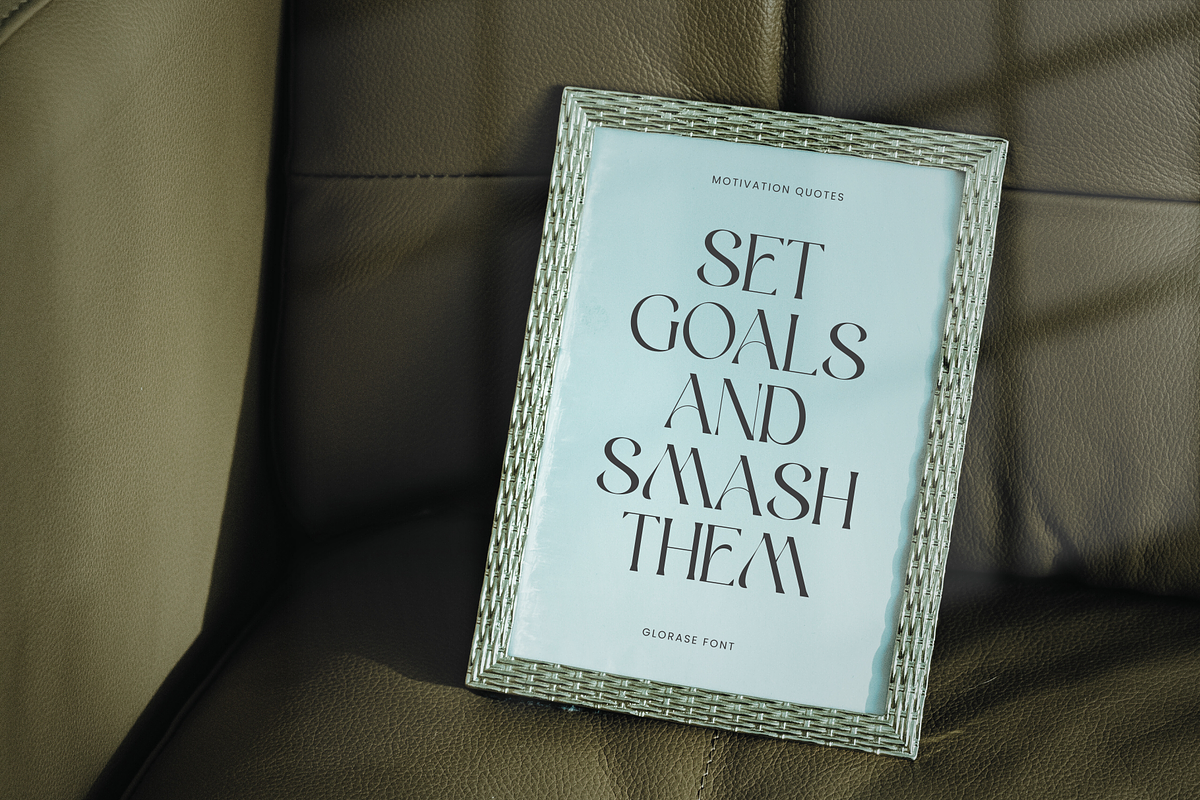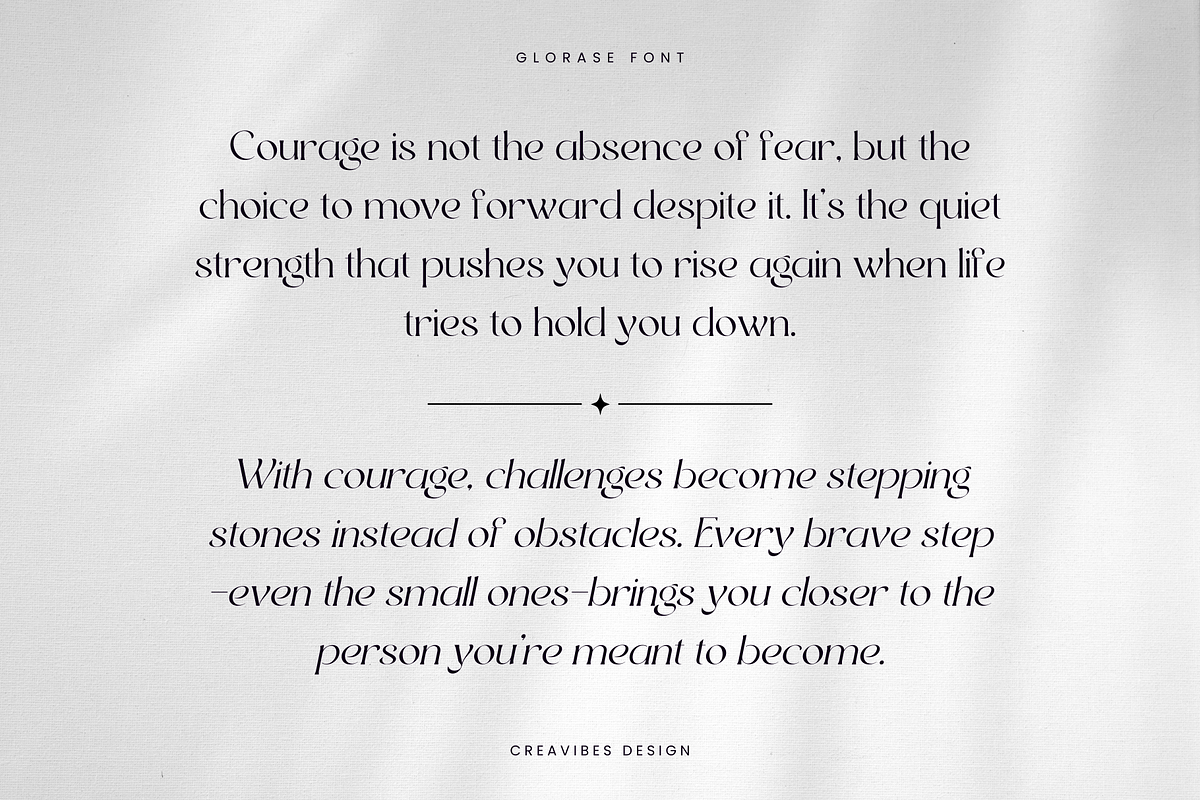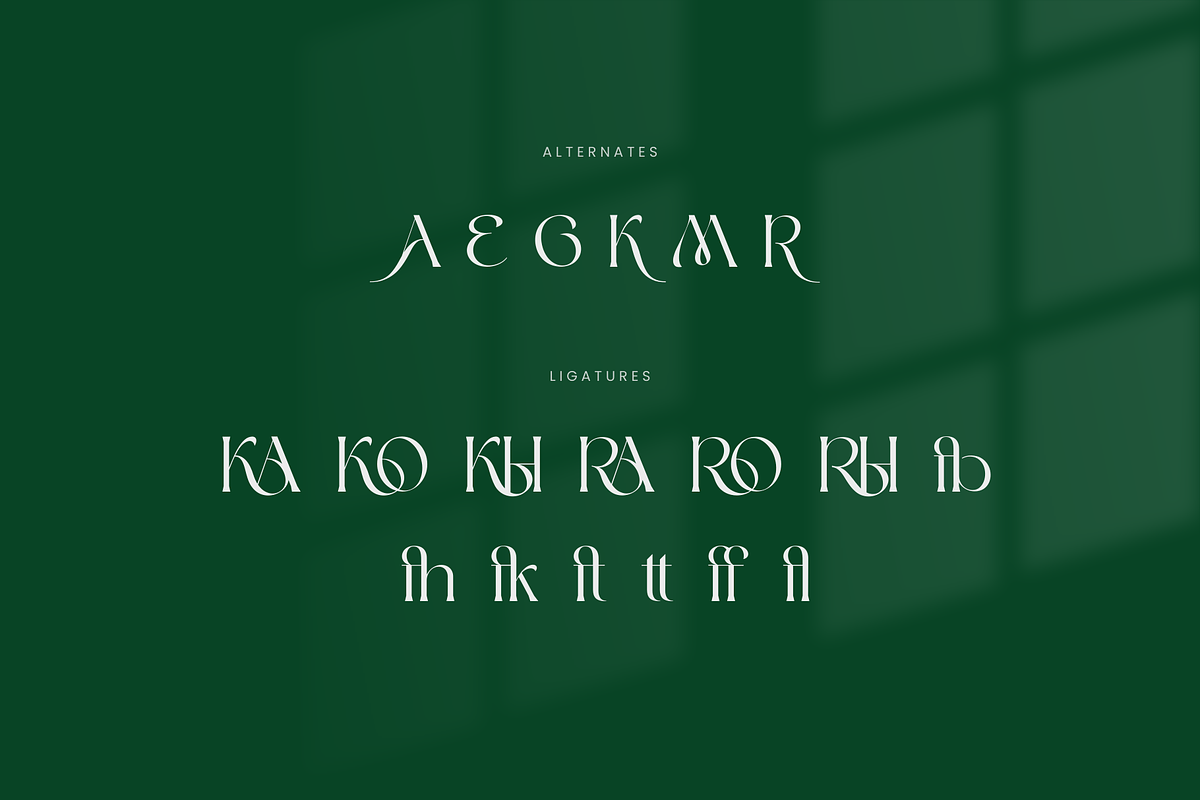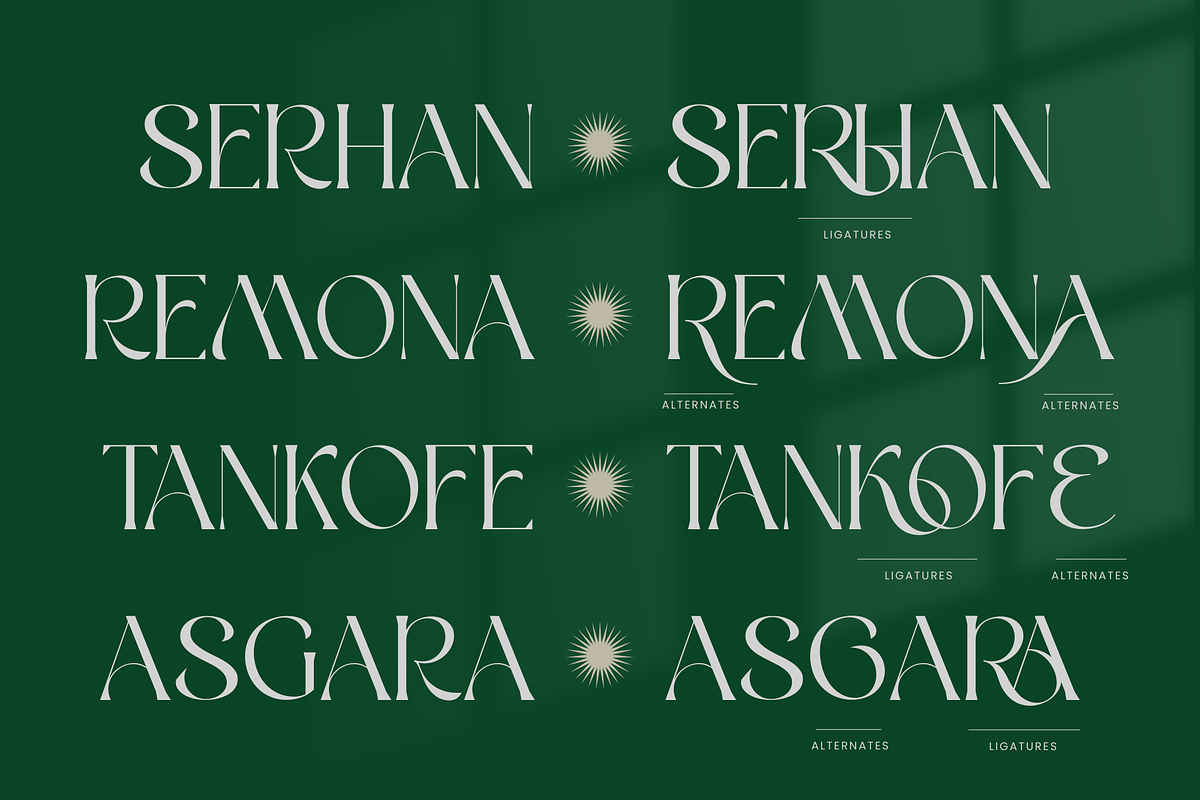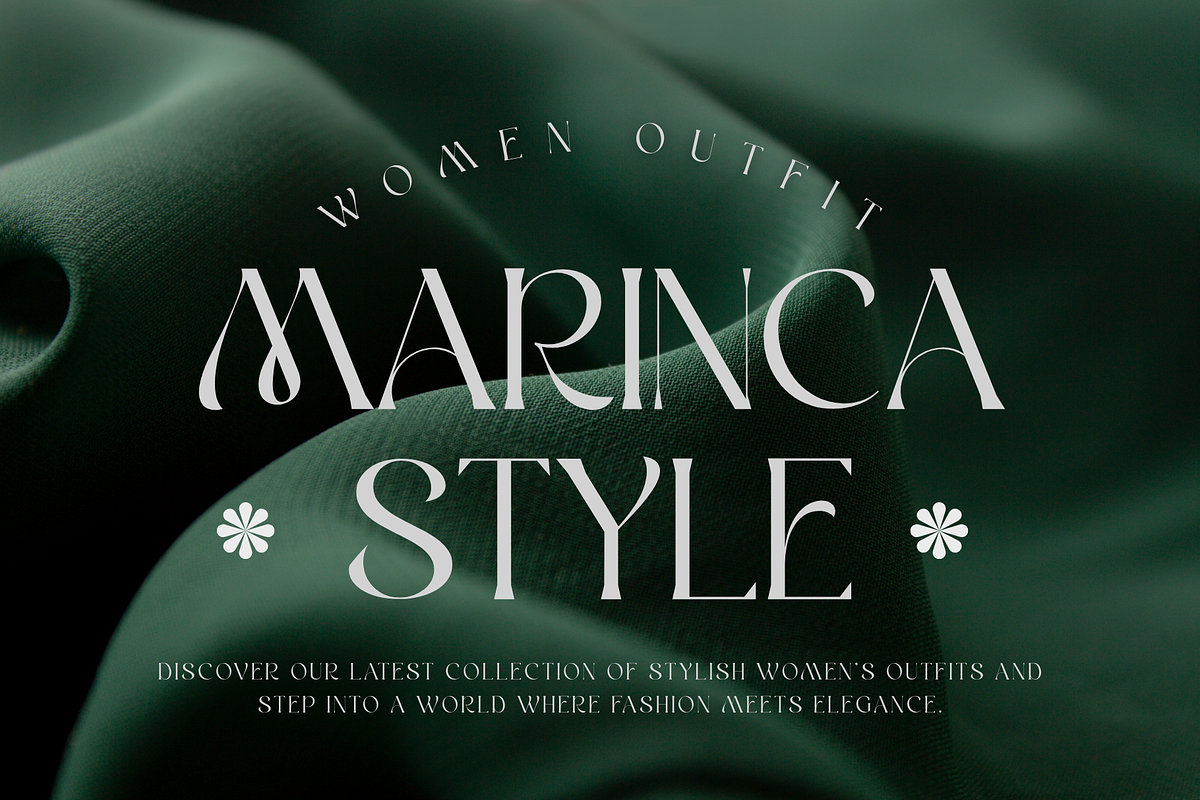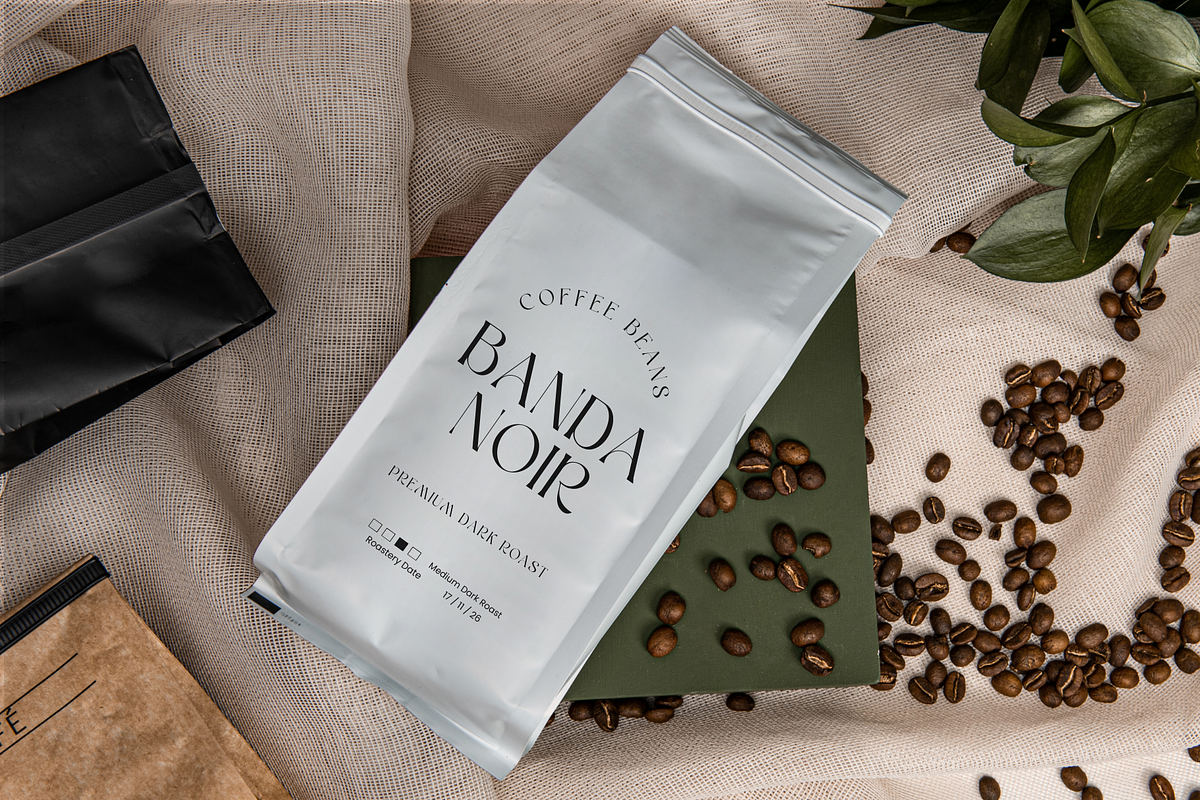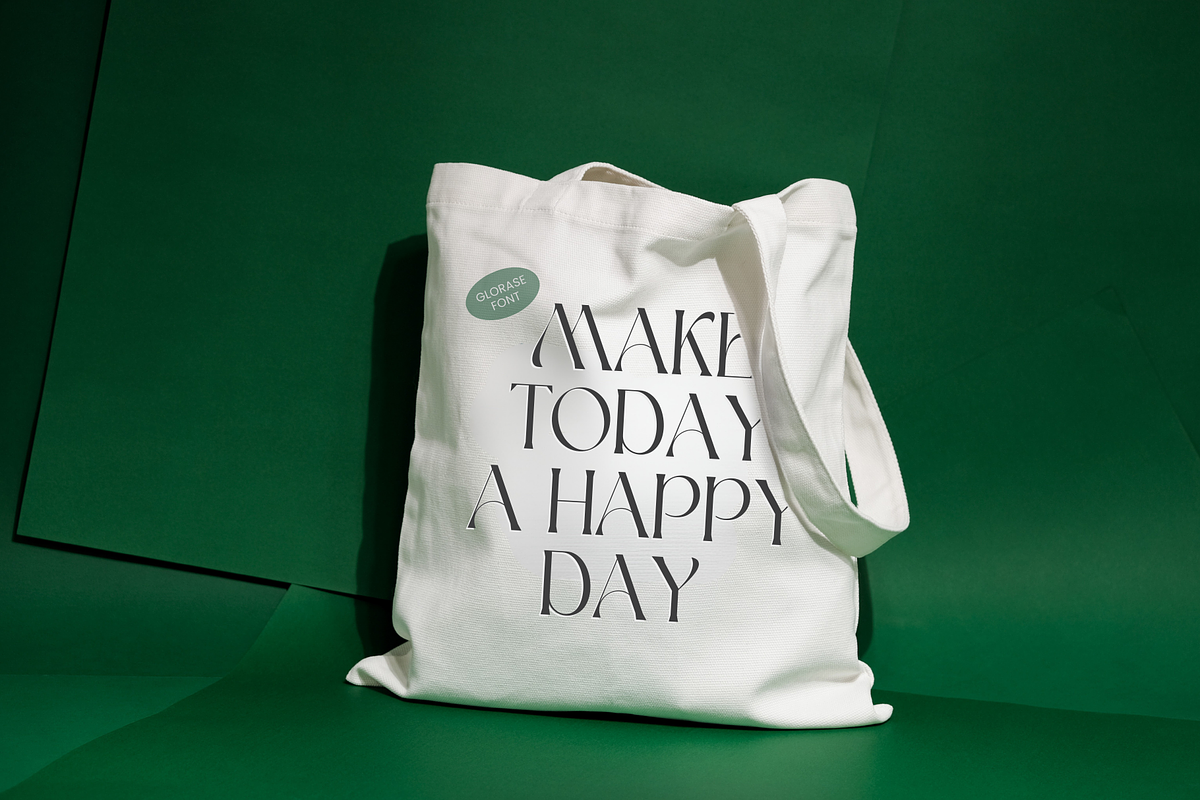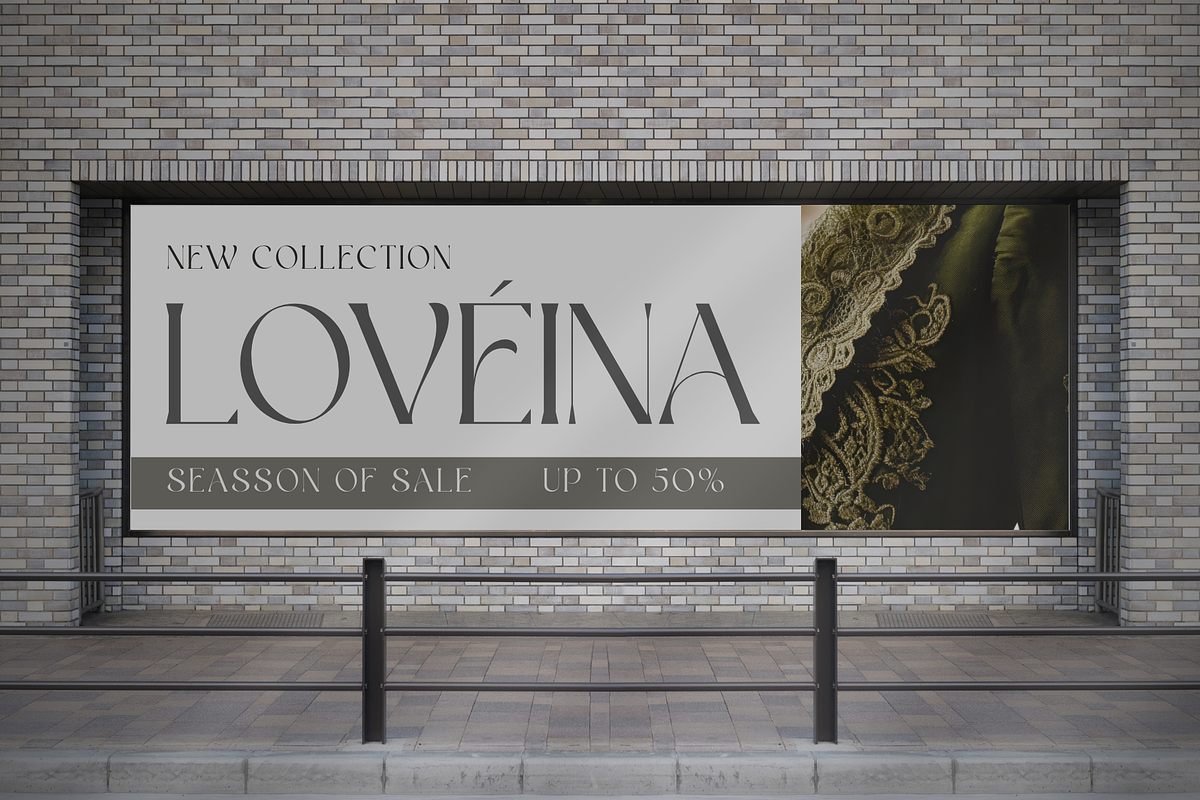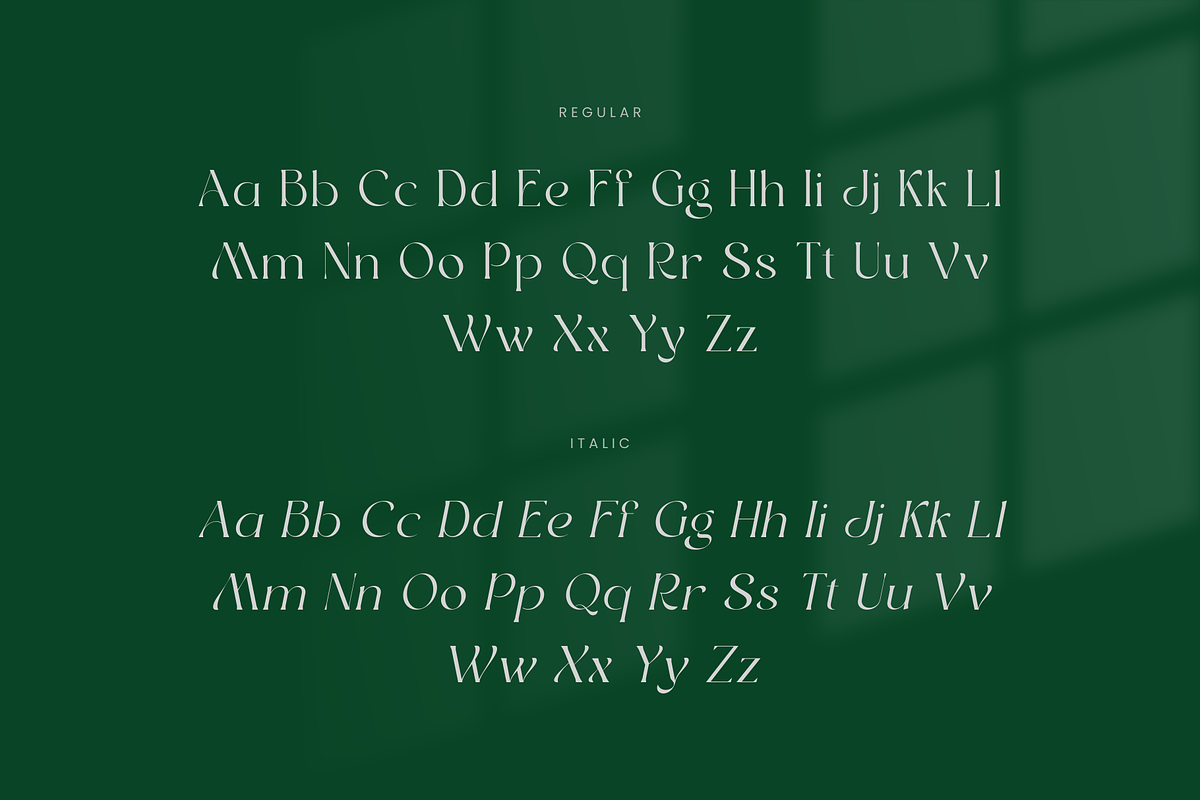
Glorase - Serif Font
Glorase is a modern serif font that blends classic elegance with a contemporary edge. Featuring clean lines, refined contrast, and stylish proportions, this font is perfect for branding, editorial layouts, logos, magazines, and premium packaging. Glorase delivers a sophisticated yet modern feel, making it ideal for designs that demand both clarity and elegance.
- Regular & Italic styles
- Alternates & ligatures
- Numerals & punctuation